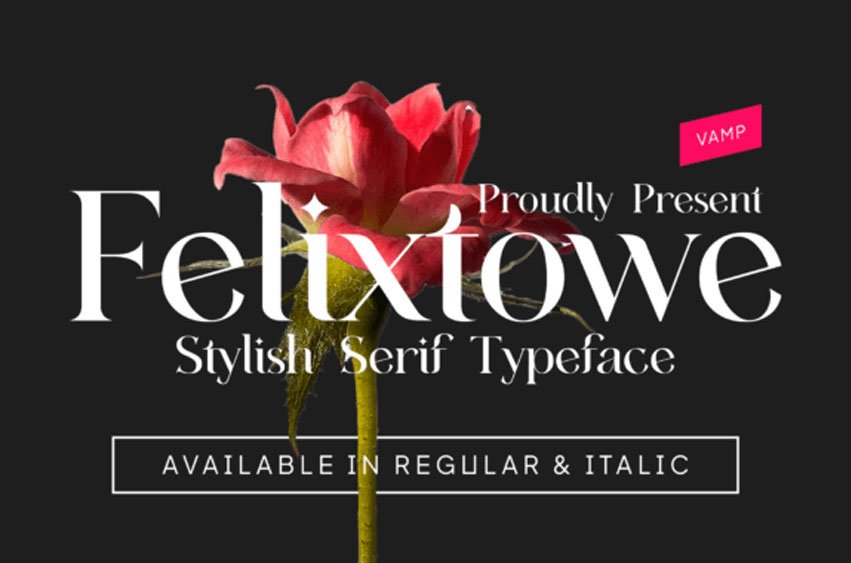
Felixtowe Serif Font is a PUA Encoded modern, elegant serif typeface, perfect for branding projects, logos, wedding designs, social media posts, advertisements, product packaging, product designs, labels, photography, watermarks, invitations, stationery and any so much more.
Every letter has a unique and beautiful touch, which will make your design come alive!